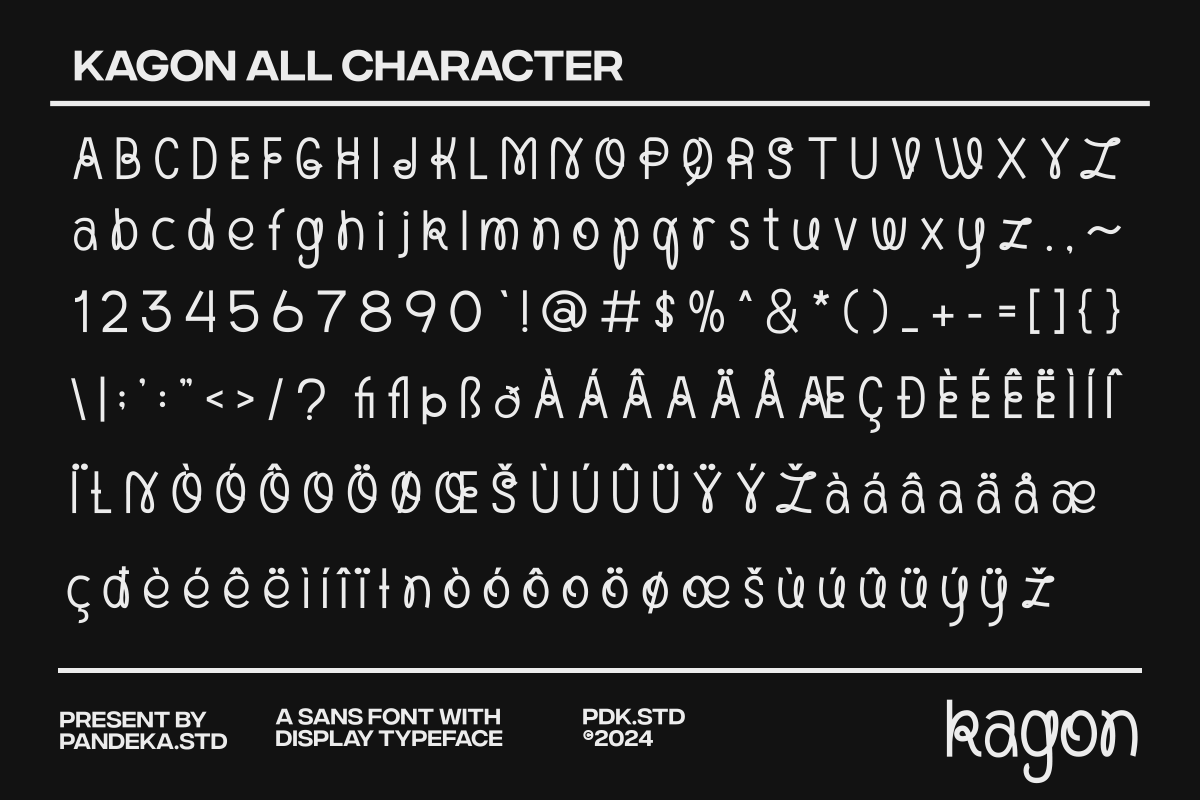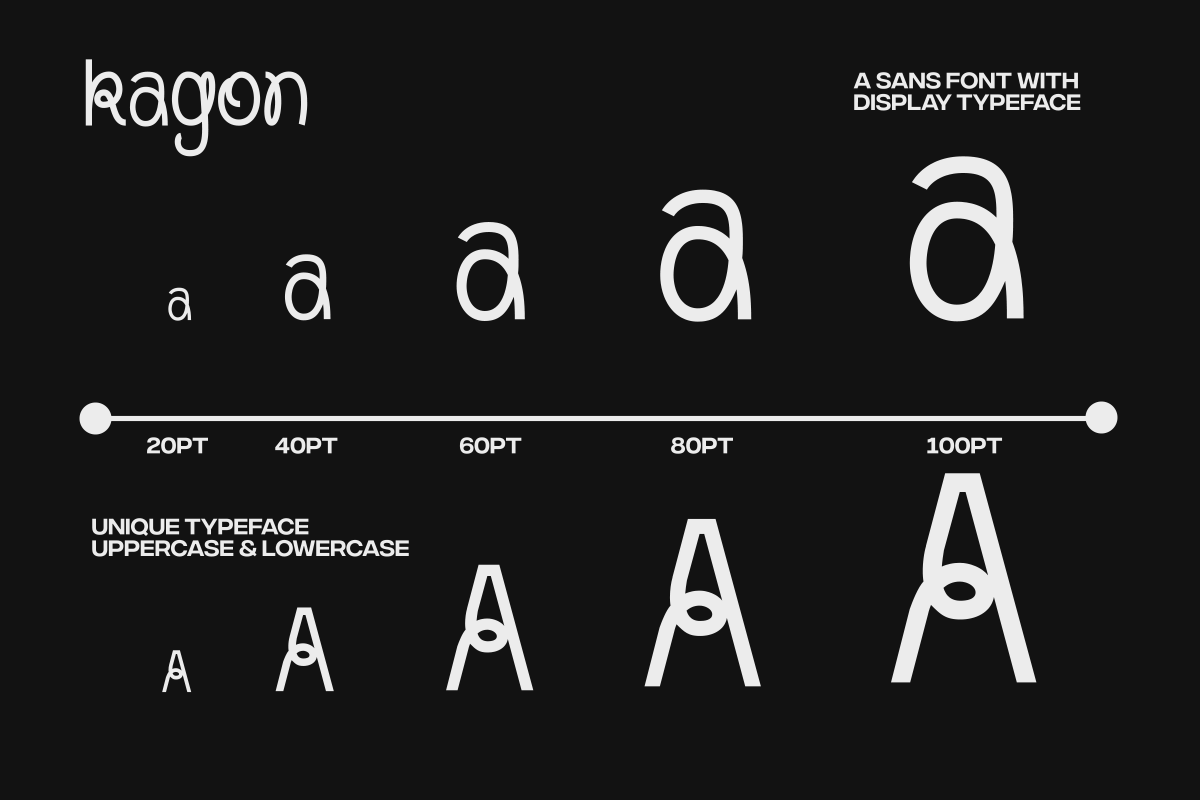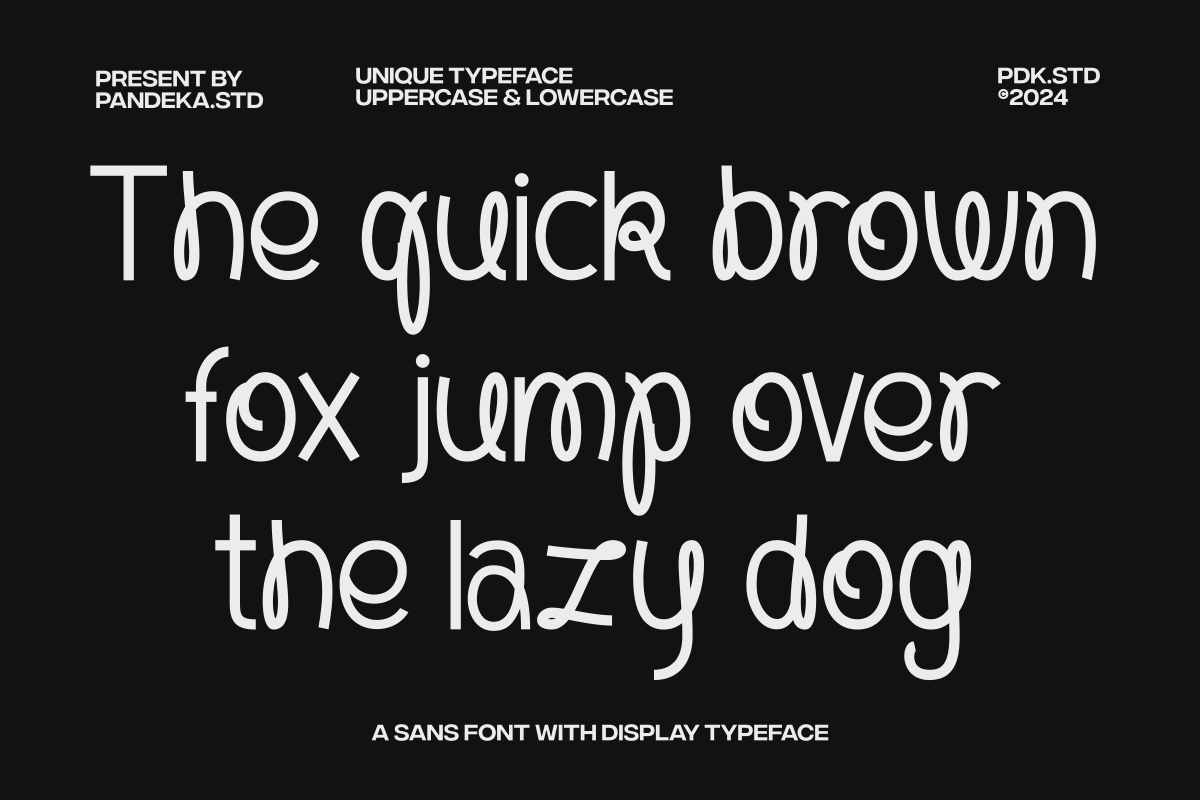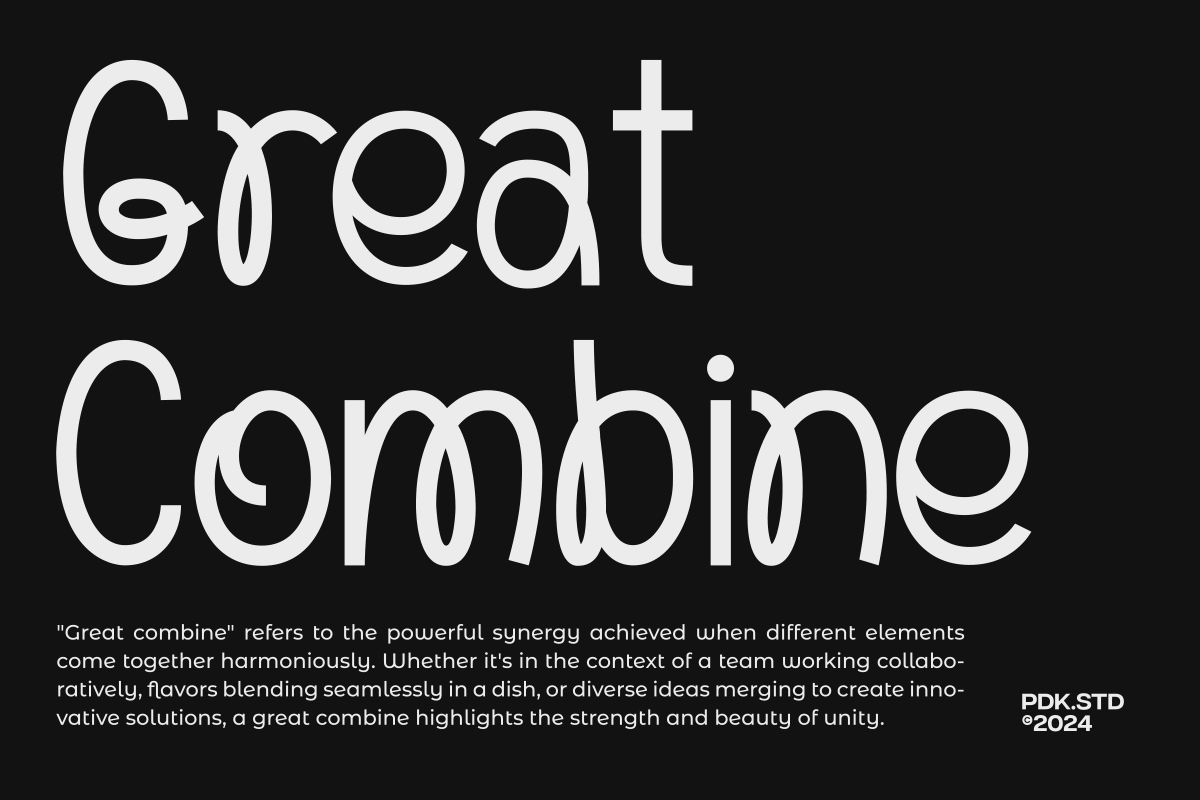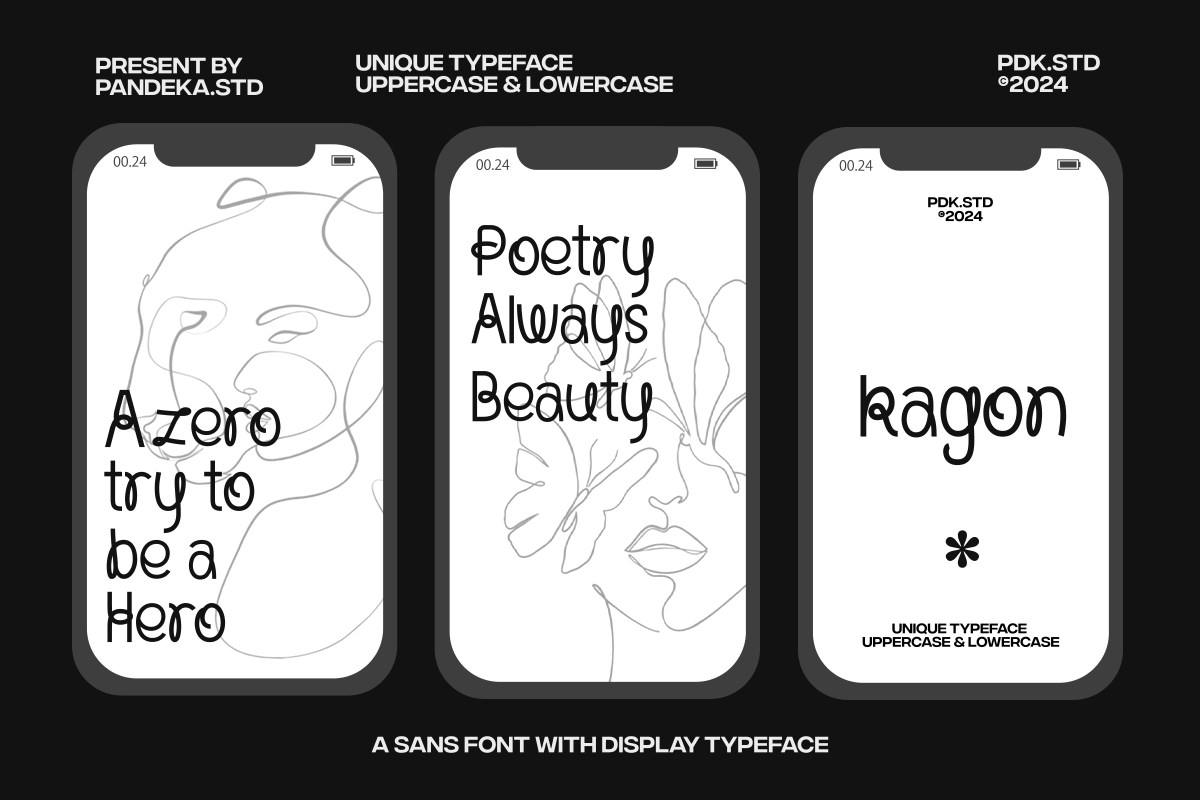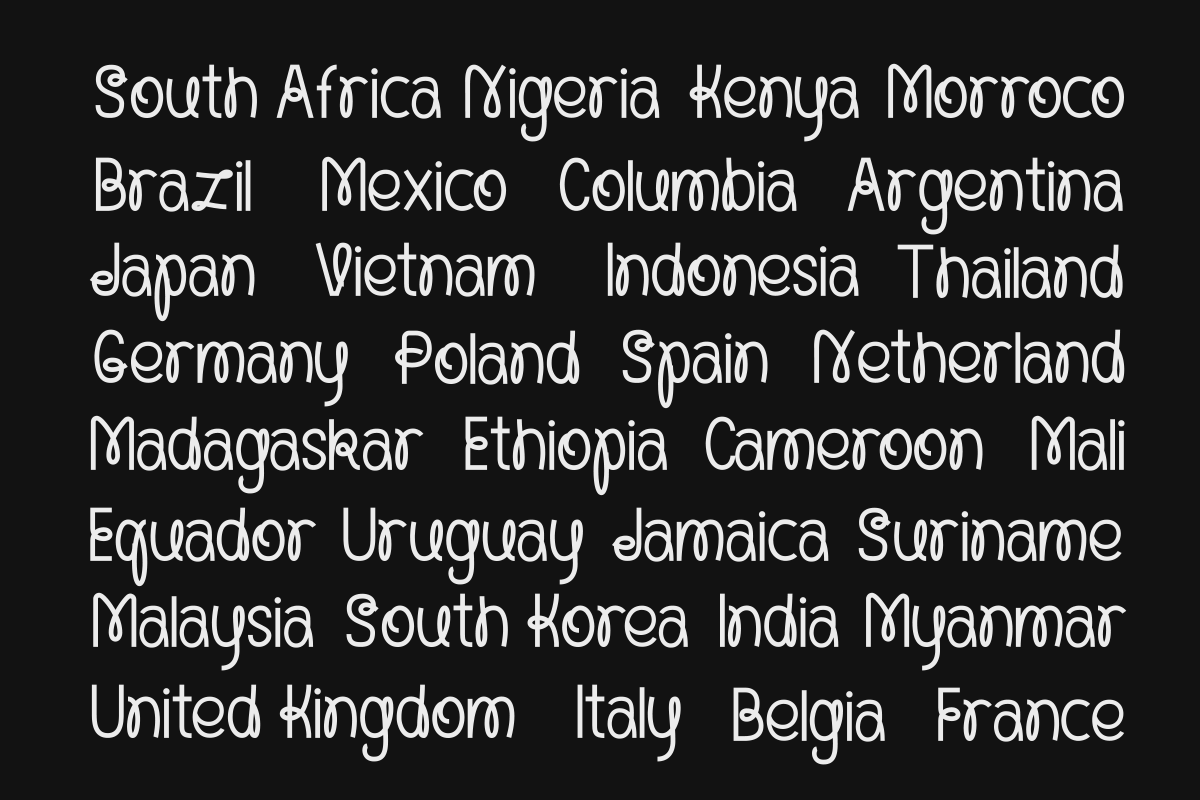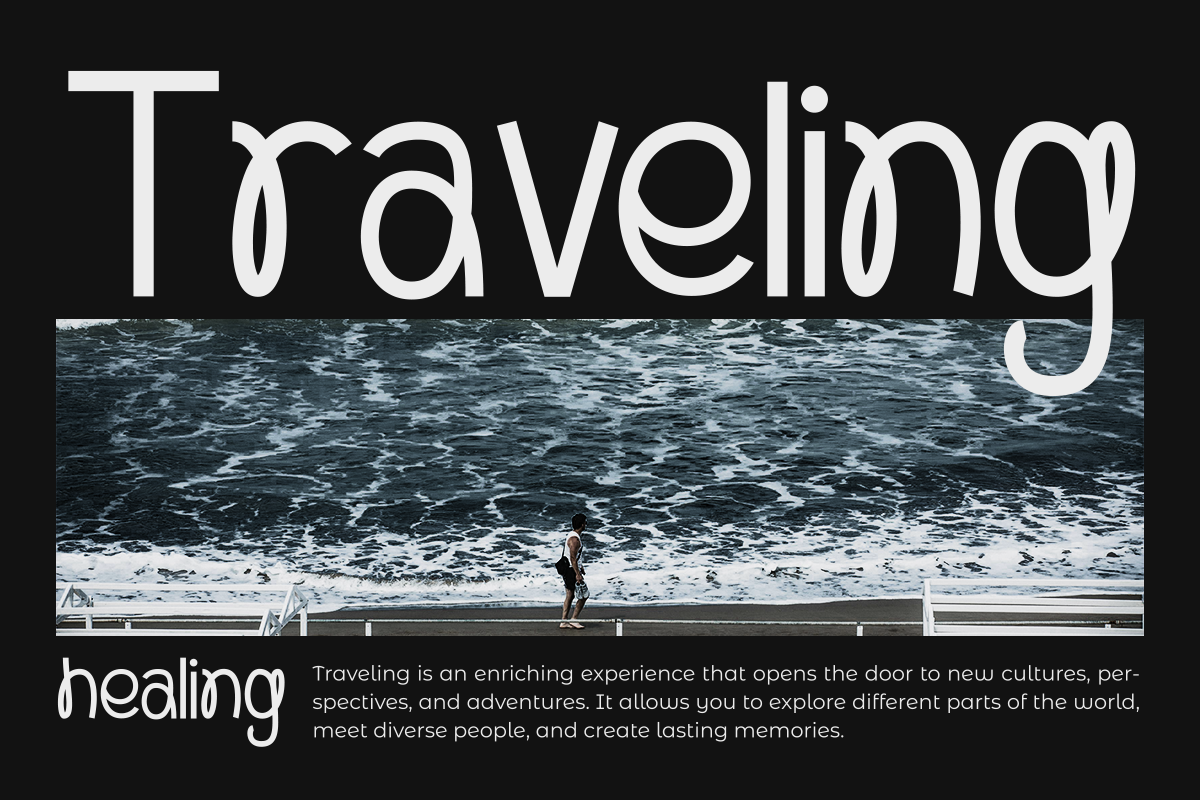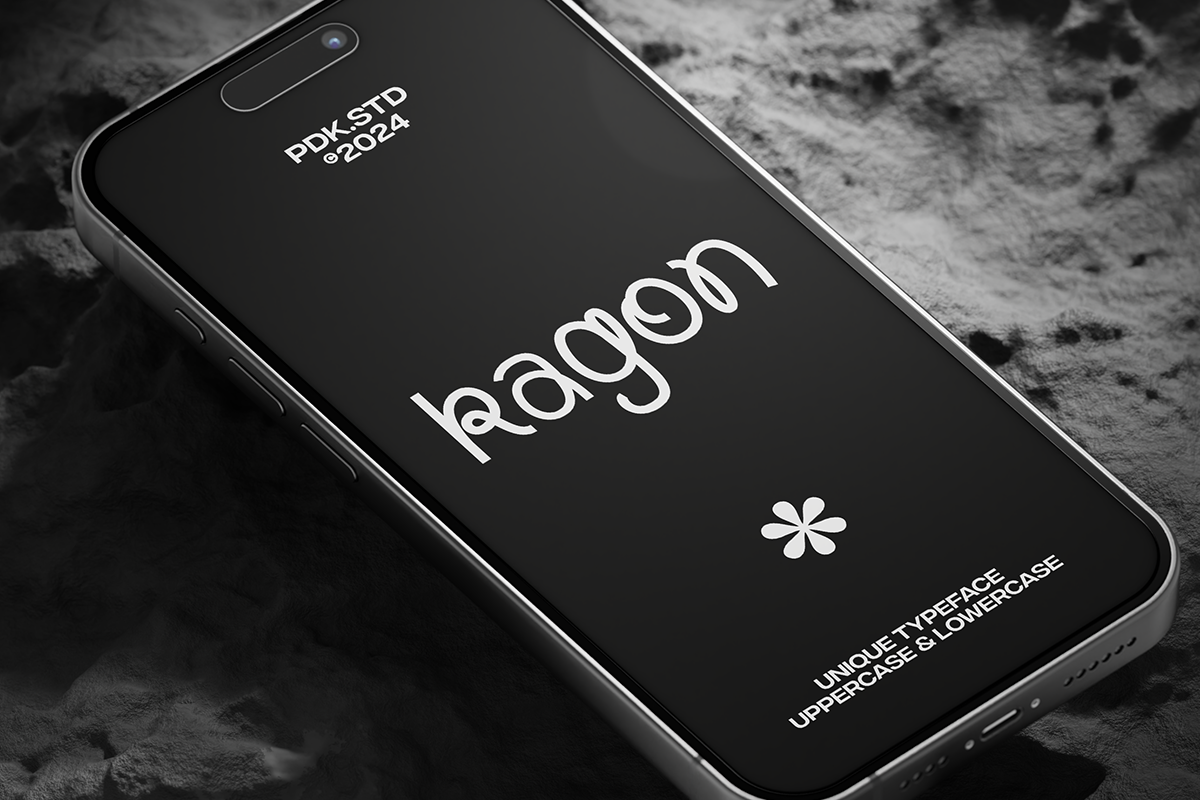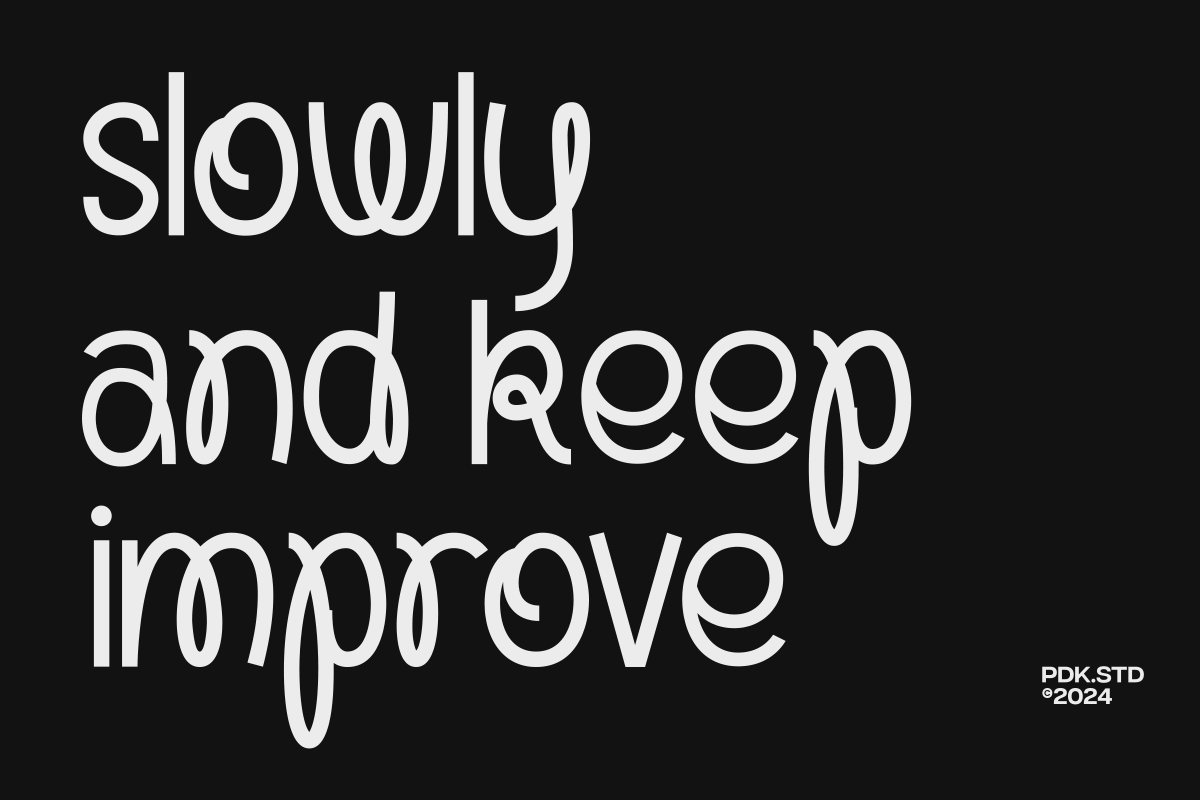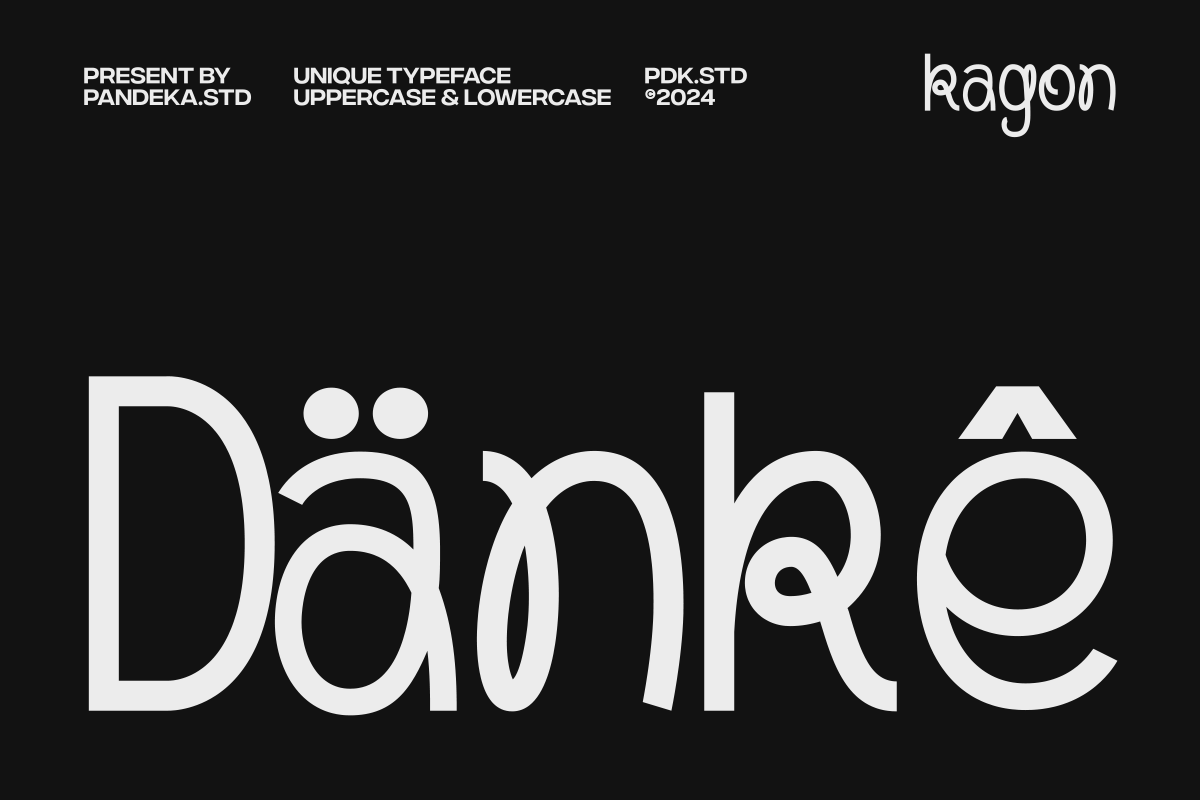
Kagon - Unique Modern Experimental
Introducing Kagon! – Casual sans that is the perfect combination of strength & play.
Kagon is an experimental and unique font with stylish curves and a modern visual design. Kagon is here to make your projects more stunning and eye-catching.
Kagon is the perfect choice for any creative endeavor! Whether it’s logos, advertisements, watermarks on photos, stationery, branding projects, magazine layouts, invitations, corporate branding, product designs, labels, business projects, or any other project that needs an elegant touch, Kagon has got you covered.
- Unique Gylph Letters